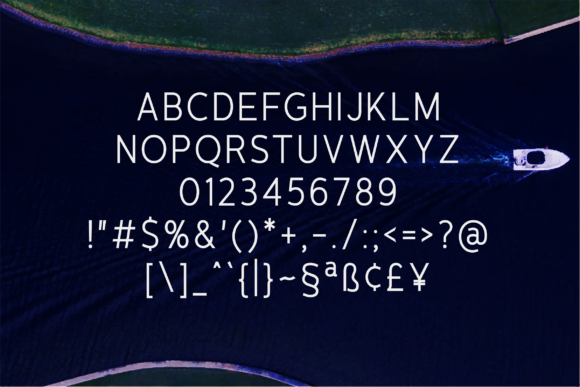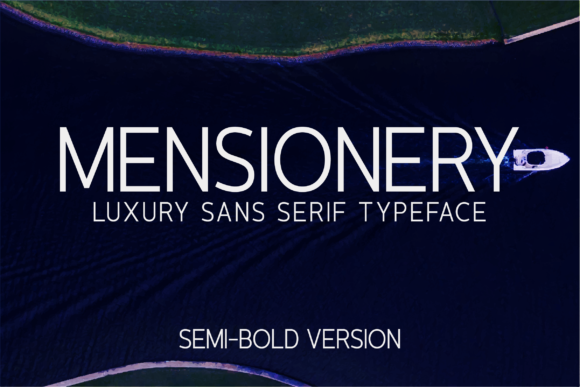
Introduction to Mensionery Semi-Bold Font
Mensionery is a minimalistic, timeless, and stunning all caps sans serif font that looks beautiful in layouts, headers, web, and many other contexts.
It comes in ten different weights .
Key Features of Mensionery Semi-Bold Font
Why Choose Mensionery Semi-Bold Font?